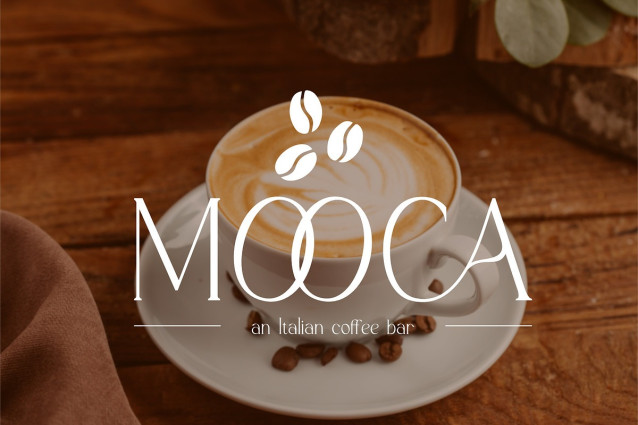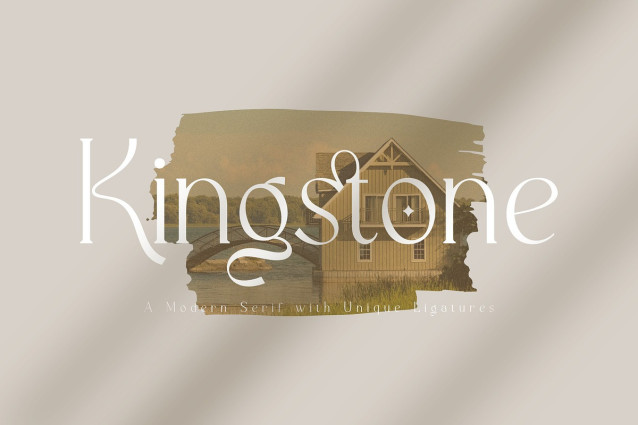
Kingstone Typeface
Kingstone Typeface is a modern and stylish serif font that is perfect for fashion and luxury branding, high-end fashion magazines, websites, social media graphics, digital ads, brochures, flyers, business cards and many more. Its unique alternates and ligatures make it stand out from other serif fonts on the market while its clean and elegant design makes it suitable for various purposes.
The font comes with uppercase and lowercase characters, alternative alphabet, ligatures, numerals and punctuation.